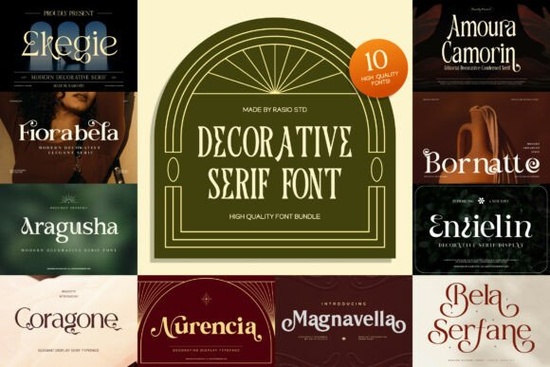
Designers and crafters often need typography that carries a sense of history and elegance. When building a visual identity or designing a physical product, the right letterforms add immediate personality and depth. The Decorative Serif Font bundle provides a curated collection of ornamental typefaces specifically made for this purpose. Drawing from classic vintage aesthetics, these expressive letters feature unique swashes, curves, and refined accents that help your work stand out in a crowded market.
How do ornamental typefaces improve branding projects?
Small businesses and brand creators rely on distinct visuals to build trust and recognition with their audience. Using highly stylized text for logos, product packaging, and headlines gives a brand a classic soul that feels established. According to the history of serif typography, these small decorative strokes originated in ancient stone carving and naturally convey a sense of tradition and authority. If you are working on holiday-specific packaging or seasonal branding, incorporating a specialized option like the Festive Flourish Font can give your designs an immediate seasonal context. You can also browse this related holiday lettering category to find more inspiration for seasonal campaigns.
Which crafting projects work best with detailed letterforms?
For creative hobbyists and print-on-demand sellers, readability at larger sizes is crucial. Highly detailed display fonts shine on items where the text is the main focal point rather than a background element. Tote bags, art prints, greeting cards, and ceramic mugs all benefit heavily from expressive typography. When designing these physical items, the decorative accents and sweeping curves catch the eye immediately. However, balancing the visual weight is just as important as the design itself. If a project requires a slightly more modern vintage feel, crafters often pair these heavy details with a lighter option, such as the Grinola Font. Exploring this lighter typographic alternative helps ensure your final product looks balanced and professional.
What should you consider when pairing display fonts?
Because ornamental fonts carry so much visual weight, they work best in short bursts. Use them for titles, short quotes, or elegant initials rather than long blocks of text. When laying out an editorial spread or a promotional poster, it helps to pair your decorative headline with a clean, simple sans-serif for the body text. This contrast ensures your main message remains easy to read while the headline grabs attention. For compositions that need an extra layer of artistic detail, exploring a Stylistic Serif Font can provide the exact mood your layout requires. Finding the right balance is often easier when you look through a curated stylistic collection to compare different weights and flourishes side by side.
Where is the best place to use these fonts?
This specific collection is built for visual compositions where mood and style matter most. Instead of using standard system text, you get a rich typographic palette tailored specifically for display use. Whether you are formatting an elegant wedding invitation or setting up the title page for a self-published book, the refined details make every word feel intentional and timeless. You can explore similar bundled options in this dedicated serif category to find the perfect match for your next layout.
Quick checklist for using display typography
Before exporting your final design or sending it to the printer, keep these practical tips in mind:
- Limit your usage: Use the decorative font only for headlines or short phrases to maintain readability.
- Adjust letter spacing: Tighten or loosen the tracking slightly to ensure the swashes do not clash with neighboring letters.
- Check the details: Ensure that extended curves and ornamental accents do not overlap awkwardly with other graphic elements.
- Test at different sizes: Print a physical sample or zoom out on your screen to see if the fine details remain clear on your intended medium.
- Pair with neutral text: Balance the intricate letterforms by using a simple, unadorned font for your paragraphs and fine print.